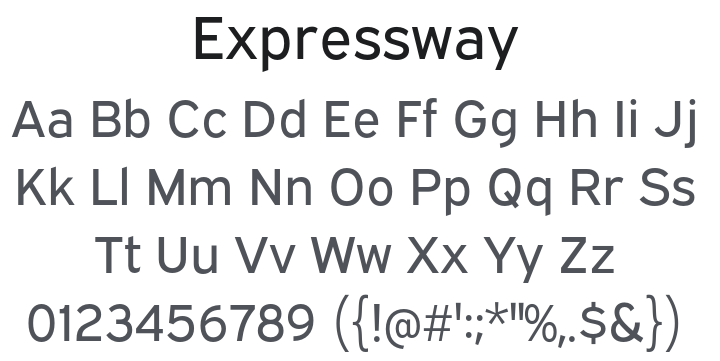
Expressway Font
About Expressway
Expressway refines the functional elegance of Highway Gothic into a versatile, contemporary type family. Its 28 styles; seven weights, two widths, and matching italics; provide clarity and control across signage, interfaces, and editorial design. Precise spacing and tuned proportions ensure instant legibility, while features like tabular figures, old-style numerals, and extensive symbols support complex layouts. Covering Latin, Greek, Cyrillic, and Vietnamese scripts, Expressway maintains its authority and readability in any language. Built for direction and impact, it delivers confident communication from highway scale to handheld screens.